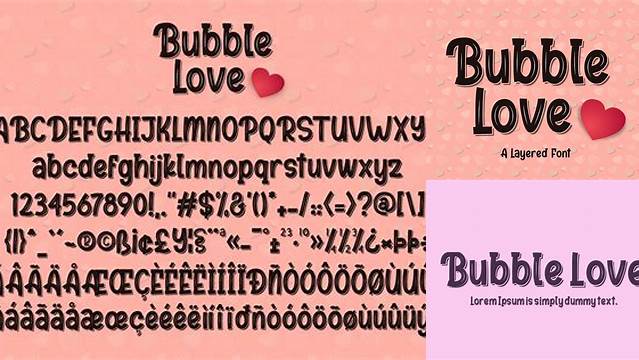
Bubble Love Demo Font: Free Download & Creative Uses
Hey guys! Are you looking to add a dash of whimsy and playfulness to your design projects? Well, you're in luck! The Bubble Love Demo Font might just be the perfect ingredient you need. This font, with its bubbly, rounded characters, is ideal for creating eye-catching headlines, delightful logos, and engaging social media graphics. In this article, we'll dive deep into everything you need to know about the Bubble Love Demo Font, including where to find it for free download, how to use it effectively, and some creative ideas to spark your imagination. So, buckle up and let's get started!
What is the Bubble Love Demo Font?
The Bubble Love Demo Font is a typeface characterized by its rounded, soft, and bubbly letterforms. It exudes a sense of fun, friendliness, and approachability, making it suitable for a wide range of design applications. The "Demo" in its name indicates that it's a trial version, typically offered for free for personal use. This allows designers and hobbyists to explore the font's potential before committing to a full commercial license. The charm of this font lies in its ability to convey a lighthearted and cheerful message, making it a favorite for projects targeting children, creative brands, or anyone looking to add a playful touch.
Key Features of Bubble Love Demo Font
The Bubble Love Demo Font comes with several distinctive features that make it stand out: its rounded letterforms give it a soft and friendly appearance, making it highly readable and visually appealing. The uniform thickness of the strokes ensures consistency across all characters, which provides a balanced and harmonious look. It often includes a basic character set, covering uppercase and lowercase letters, numbers, and essential punctuation marks, offering versatility for various design needs. Due to being a demo version, advanced features like ligatures, stylistic alternates, and extended language support might be limited, which encourages users to purchase the full version for a comprehensive toolkit. Its suitability for headlines, logos, and branding materials makes it a go-to choice for designers aiming to create memorable and engaging visuals.
Where to Use Bubble Love Demo Font
The adaptability of the Bubble Love Demo Font allows it to shine in diverse creative projects. For children's books and educational materials, its playful and inviting style captures the attention of young readers, making learning more engaging and fun. In logo design, it helps brands project a friendly, approachable, and creative image, ideal for businesses targeting families or offering playful products. For greeting cards and invitations, it adds a personal and cheerful touch, perfect for birthdays, baby showers, and casual events. On social media graphics, it creates eye-catching visuals that stand out in crowded feeds, helping to attract attention and convey a positive message. In website design, especially for sites aimed at younger audiences or those with a whimsical theme, it enhances the overall user experience by adding a touch of fun and personality. Overall, the Bubble Love Demo Font is perfect for any project needing a dash of joy and creativity.
Creative Ways to Use Bubble Love Demo Font
Okay, so you've got the Bubble Love Demo Font downloaded and ready to go. Now what? Let's brainstorm some cool and creative ways to use this font in your projects! The bubbly and playful nature of this font makes it incredibly versatile, but it's all about finding the right context and combination to make your designs truly shine. Whether you're working on a logo, a website, or some social media graphics, there are tons of ways to incorporate this font and add a touch of fun and personality. Let's dive into some specific ideas to get those creative juices flowing!
Designing Eye-Catching Logos
When it comes to logo design, the Bubble Love Demo Font can be a fantastic choice for brands that want to project a fun, friendly, and approachable image. Imagine a logo for a children's bookstore, an ice cream shop, or a daycare center – this font would be perfect! The rounded letterforms create a sense of warmth and playfulness, making the brand instantly more inviting. To make the logo even more effective, try pairing the font with bright, cheerful colors and simple, clean graphics. Think about using a cute illustration or icon that complements the font's bubbly style. Also, consider the overall message you want to convey and ensure that the font aligns with the brand's values and target audience. By carefully selecting the right elements and combining them with the Bubble Love Demo Font, you can create a logo that truly captures the essence of the brand and makes a lasting impression.
Enhancing Social Media Graphics
Social media is a visual playground, and the Bubble Love Demo Font can help you create graphics that grab attention and stand out in a crowded feed. Use it for eye-catching headlines, promotional announcements, or even just to add a bit of personality to your posts. Pair it with vibrant images or colorful backgrounds to really make it pop. Think about creating quotes or inspirational messages using the font, and share them on platforms like Instagram, Facebook, and Twitter. The key is to keep it fun and engaging. Also, remember to optimize your graphics for different social media platforms to ensure they look their best on every device. By incorporating the Bubble Love Demo Font into your social media strategy, you can create a cohesive and visually appealing brand presence that resonates with your audience.
So, there you have it, guys! The Bubble Love Demo Font is a fantastic tool for adding a touch of fun and playfulness to your designs. Whether you're creating logos, social media graphics, or invitations, this font can help you stand out and make a lasting impression. Just remember to download it from a reputable source, check the license agreement, and use it effectively by pairing it with the right fonts and maintaining consistency. Now go out there and create something amazing with the Bubble Love Demo Font! Have fun and happy designing!